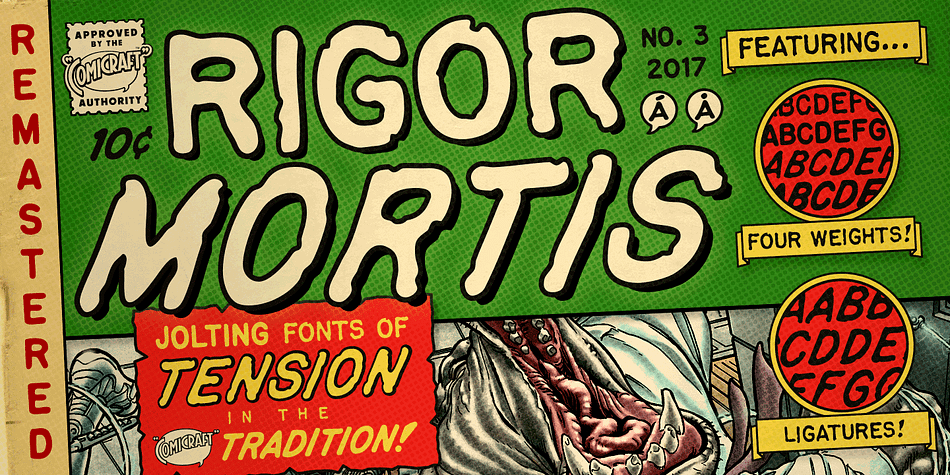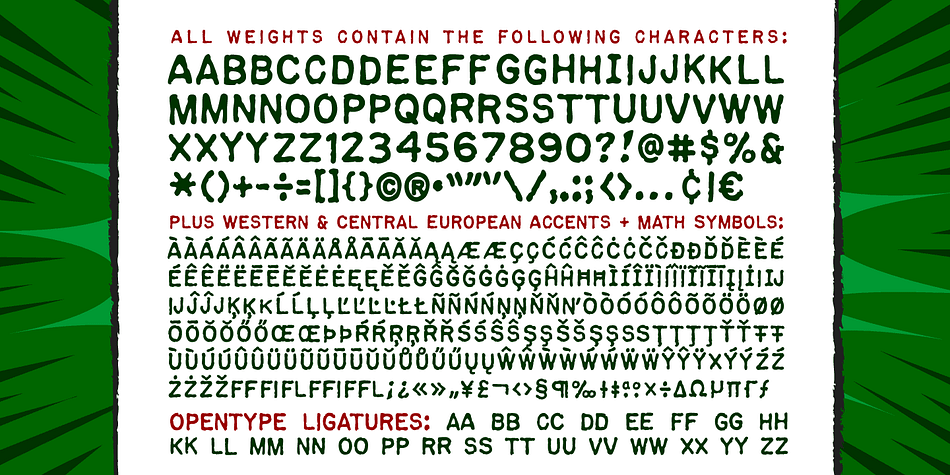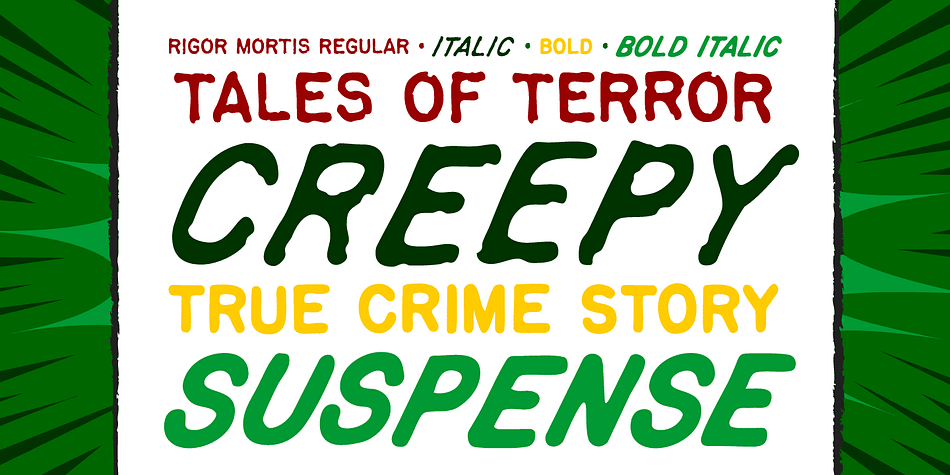
Designed by John Roshell, Rigor Mortis is a hand display font family. This typeface has four styles and was published by Comicraft.
Here’s a Collector’s Item Classic for all our fiends! Sit up in your Caskets and we’ll help you spin a Shocking, Suspense-filled Tale of Terror with a font Bad Bad Leroy “JG” Brown found in the Vault! Give us your grimy little dimes and come down into the Crypt with us. We call this rotten little font… RIGORMORTIS! AHAHAHHAHHHAHHHHAHA-HAH-haa…
Four weights (Regular, Italic, Bold & Bold Italic) with alternate uppercase characters. Includes Western and Central European international characters.